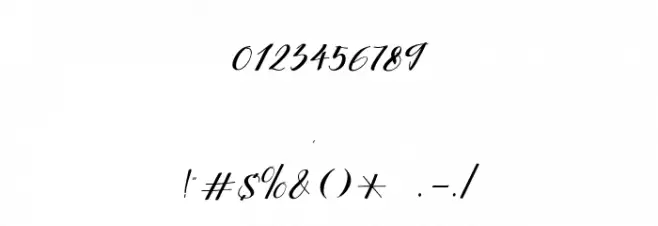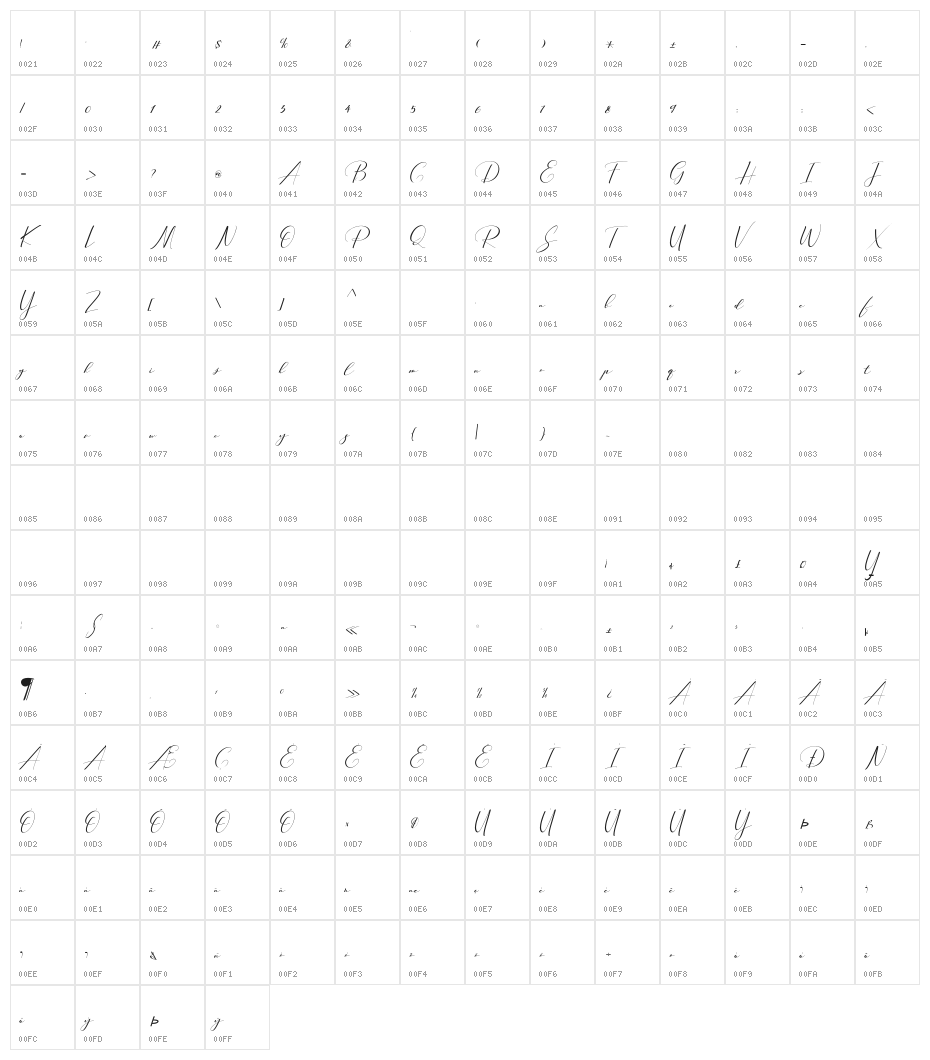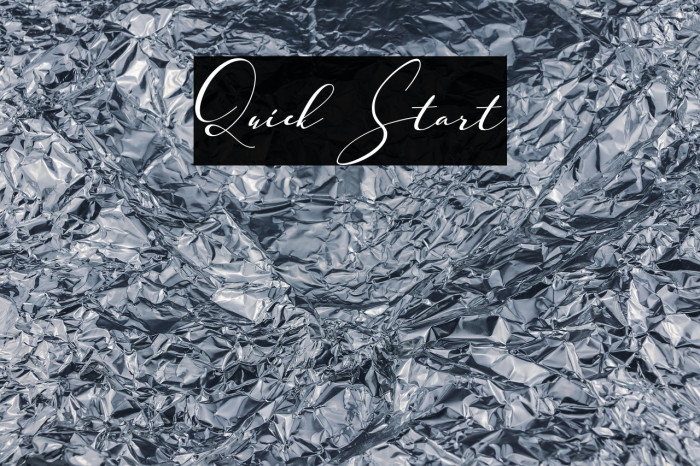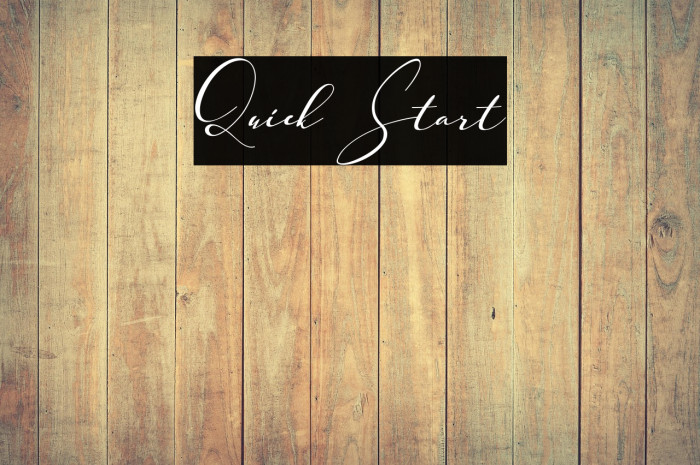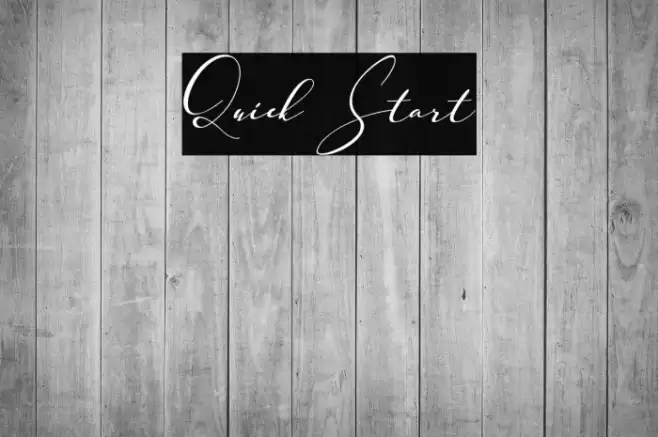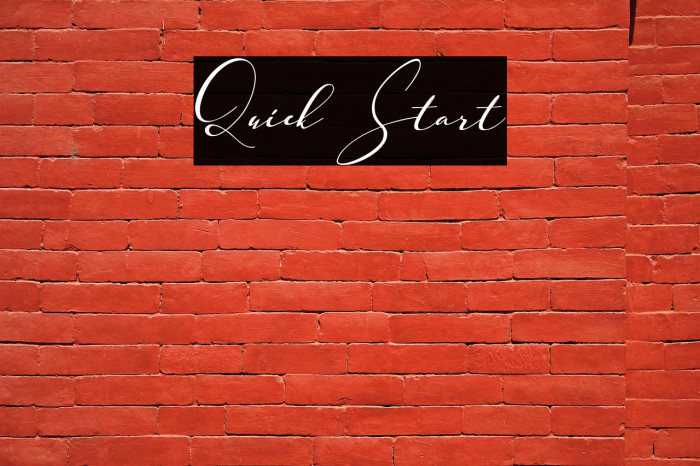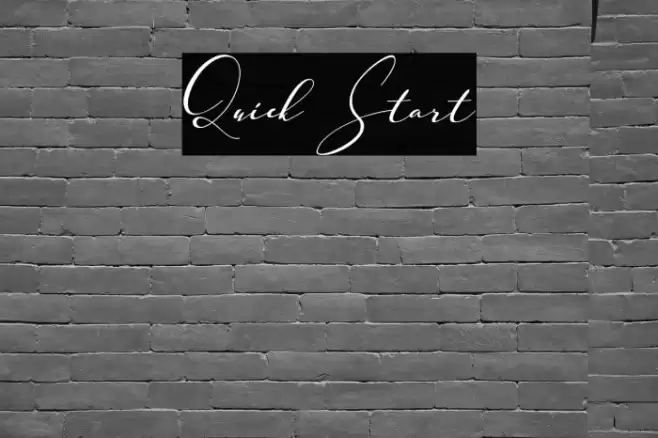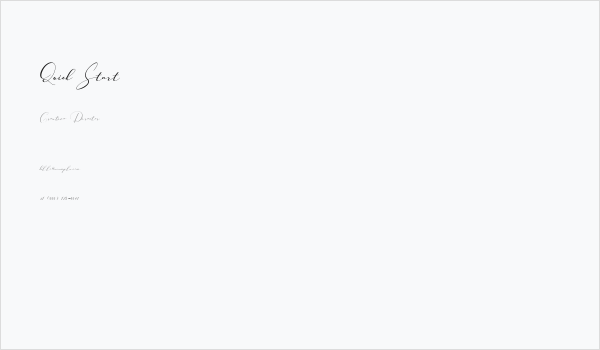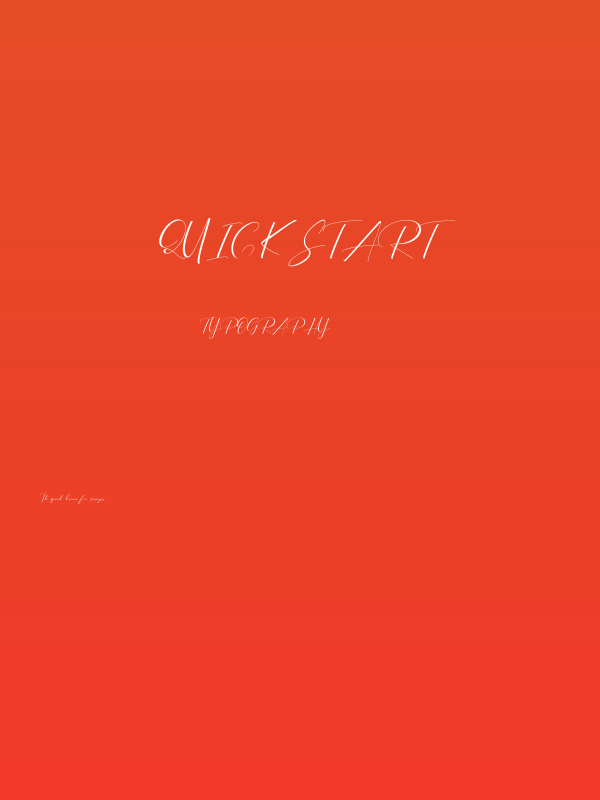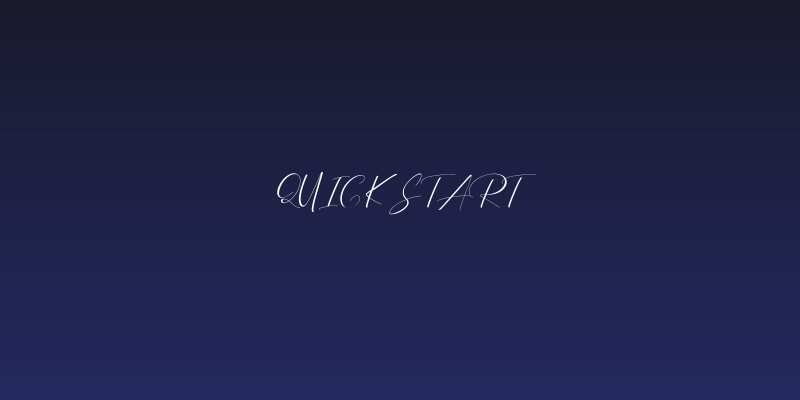
Quick Start Font
Quick Start Description
This elegant script font features a flowing, cursive style with high contrast between thick and thin strokes. The uppercase letters are particularly ornate, with sweeping flourishes that add a touch of sophistication and grace. The lowercase letters maintain a consistent style, with smooth, connected strokes that enhance readability while preserving the decorative nature of the font. Numbers and special characters are designed to match the overall aesthetic, ensuring a cohesive look across all text elements. This font is perfect for projects that require a touch of elegance and formality.
| Use Case | Headlines, Invitations, Branding |
| Proposed Projects | Ideal for wedding invitations, elegant branding, formal event materials, and luxury product packaging. |